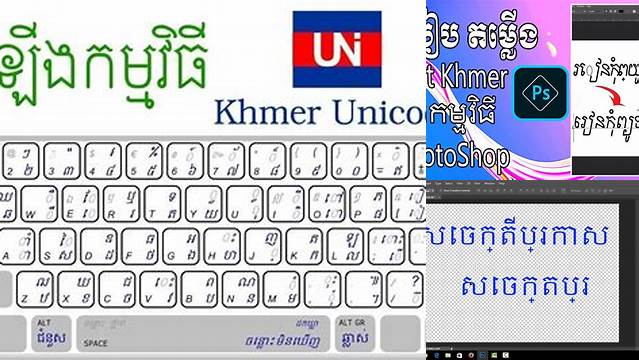
Khmer Unicode Font For Photoshop: Free Download Guide
Hey guys! Ever needed to type in Khmer in Photoshop but struggled with finding the right font? You're not alone! Many designers and creatives face this issue. Using the correct Khmer Unicode font is crucial for ensuring your text displays properly and looks professional. This article is your ultimate guide to finding, downloading, and installing Khmer Unicode fonts specifically for Adobe Photoshop. We'll explore various sources, discuss compatibility, and even troubleshoot common problems. So, let's dive in and make your Khmer typography in Photoshop a breeze!
1. Understanding Khmer Unicode Fonts
Let's kick things off by understanding what Khmer Unicode fonts actually are. Khmer Unicode is the standard encoding system for the Khmer script, which is used in Cambodia. This encoding allows computers and software like Photoshop to correctly display Khmer characters. Without the right Unicode font, you might see gibberish or boxes instead of beautiful Khmer script. So, when you're looking for a font, make sure it specifically says "Unicode" to avoid headaches later. Think of it like this: having a Unicode font is like having the right key to unlock the Khmer language in your digital world. It ensures that everyone sees your text as you intend it to be seen, maintaining clarity and professionalism in your work. When you are working with Photoshop, itβs even more critical because you're likely dealing with visual designs that need to look perfect. The correct font ensures that your message is conveyed accurately and aesthetically pleasing, without any encoding issues.
2. Why Use Khmer Unicode in Photoshop?
Why bother with Khmer Unicode in Photoshop anyway? Well, imagine designing a poster or a social media graphic for a Khmer audience. Using the correct font is essential for readability and professionalism. If you use a font that doesn't support Khmer Unicode, your text will likely appear as a jumbled mess, making your design look unprofessional and confusing. Itβs like trying to speak a language with the wrong accent β you might be understood, but it wonβt sound quite right. Plus, using Unicode ensures that your text is searchable and accessible, which is crucial for online content. So, if you want your designs to resonate with your target audience and maintain a polished look, Khmer Unicode is the way to go. It shows respect for the language and culture, making your work more impactful and effective. In short, it's about making sure your message is seen, understood, and appreciated by the people you're trying to reach. Think of it as adding that professional touch that sets your work apart.
3. Top Websites to Download Free Khmer Unicode Fonts
4. Popular Khmer Unicode Font Styles
Khmer fonts come in various styles, just like any other language! You've got your classic serif fonts, perfect for formal documents and elegant designs. Then there are the sans-serif fonts, which are cleaner and more modern, ideal for websites and contemporary graphics. And don't forget the decorative fonts β these are great for adding a unique touch to posters or headings. The key is to choose a font style that matches the tone and purpose of your design. Think about what message you're trying to convey and select a font that complements that message. A bold, strong font might be perfect for a headline, while a softer, more elegant font could be better for body text. It's all about creating visual harmony and ensuring your text is both readable and aesthetically pleasing. Imagine your font as a voice β you want it to speak clearly and in a style that resonates with your audience.
7. Setting Up Photoshop to Support Khmer Unicode
Sometimes, just installing the font isn't enough. You might need to tweak Photoshop's settings to ensure it properly supports Khmer Unicode. Go to Photoshop's Preferences (Edit > Preferences on Windows, or Photoshop > Preferences on macOS) and look for the "Type" settings. Make sure that "Show Font Names in English" is unchecked, and that the text engine is set to "Middle Eastern and South Asian." This will help Photoshop correctly render complex scripts like Khmer. Think of it as tuning your instrument before you play β you want everything to be set up perfectly for the best performance. These settings ensure that Photoshop is ready to handle the intricacies of the Khmer script, so your text displays accurately and beautifully. Itβs a small step that makes a big difference in the final result, ensuring your designs look professional and polished.
8. Troubleshooting Common Font Issues in Photoshop
Encountering problems with your Khmer fonts in Photoshop? Don't panic! One common issue is that the font appears in the font list, but the text still displays incorrectly. This often happens if the text engine isn't set up correctly (see the previous section). Another issue could be a corrupted font file β try downloading the font again from a different source. And sometimes, simply restarting Photoshop or your computer can do the trick. Think of troubleshooting as detective work β you're looking for clues to solve the mystery. Start with the simplest solutions first, like restarting the application or checking your settings. If the problem persists, try more advanced solutions, like reinstalling the font or checking for compatibility issues. The key is to be patient and methodical, and you'll eventually find the solution that works for you.
9. Using Khmer Unicode for Web Design